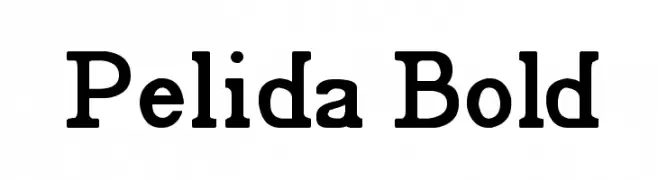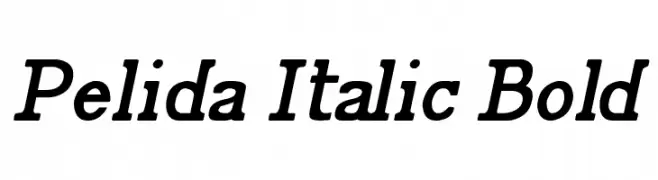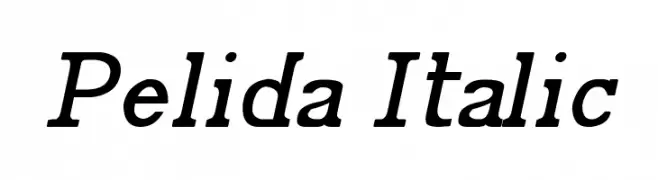
A bold, italic font with a modern yet classic style, ideal for headlines.
A bold serif font with strong, well-defined characters and a slightly condensed structure.
A bold slab serif font with strong lines and a classic style.
An elegant italic serif font with a classic yet modern appeal.